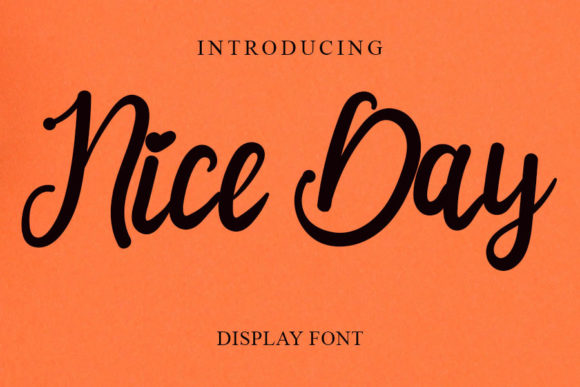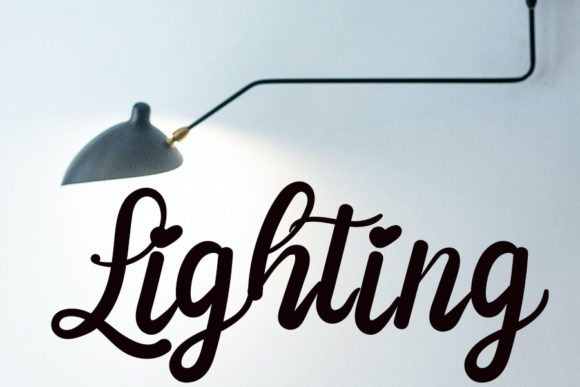
About Nice Day Font
Nice Day is an enchanting handwritten font. This versatile typeface has a wide spectrum of applications ranging from greeting cards to headlines and is guaranteed to add a romantic feel to your next project.